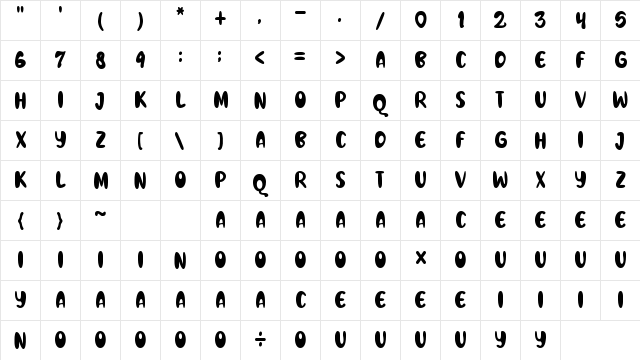
White Qwarto Regular
| Designer | Zkhai Creative |
Design Context for White Qwarto Typeface
White Qwarto is a composed and adaptable typeface that performs quietly and consistently across a wide range of design contexts.